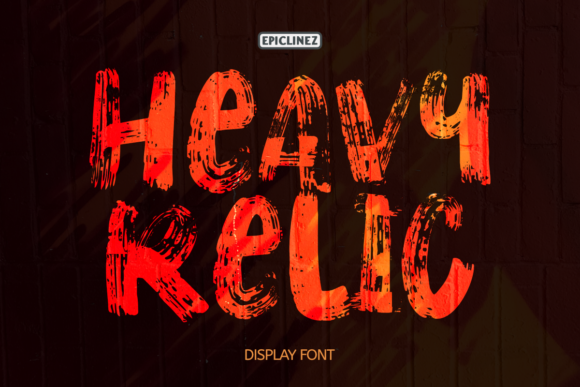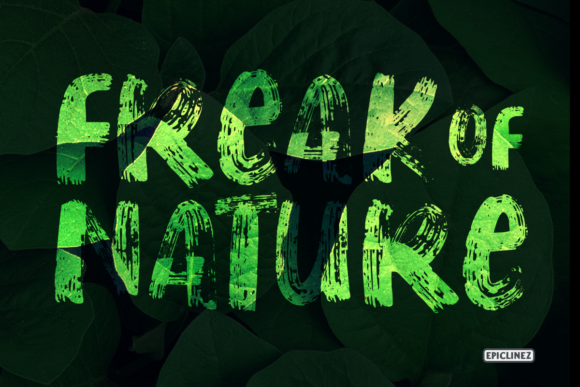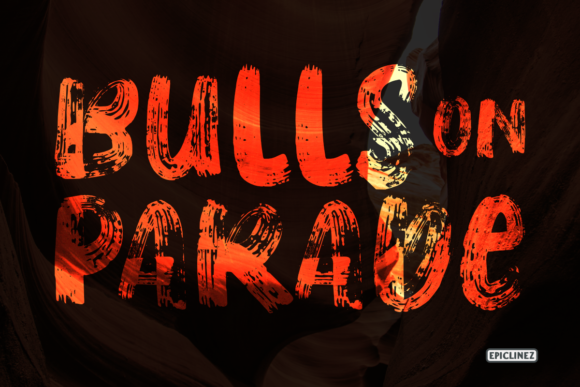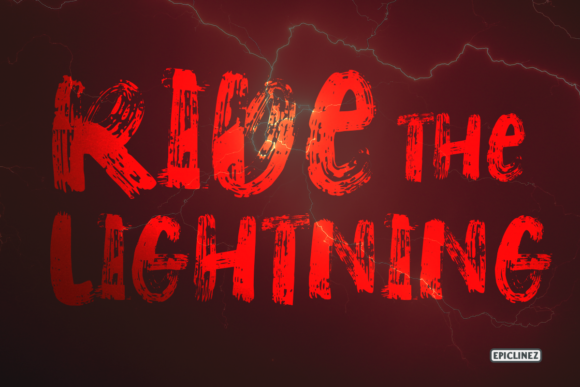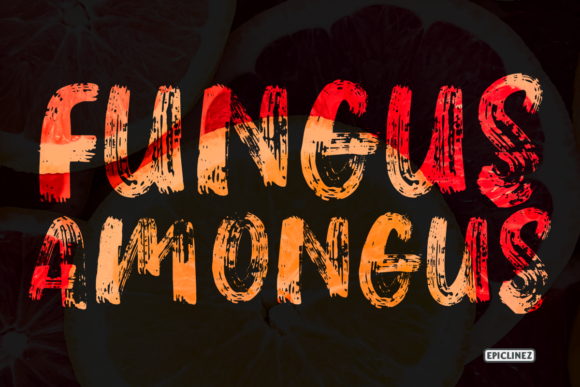
The Birth of a Timeless Design
It’s that moment when the creative juices start flowing, and you’re on the hunt for the perfect font to elevate your design. You scroll through countless options, and then, it hits you – that one font that speaks to your vision, a font that screams “use me.” For designers seeking to add an air of rugged elegance to their work, the Heavy Relic Font is the answer to that creative prayer.
This heavily textured display font is a masterclass in typography, designed to make a statement in posters, movie titles, and headlines. Its unique blend of rough edges and bold lines gives it a distinctive charm that’s sure to captivate audiences. The Heavy Relic Font is a valuable addition to any designer’s toolkit, offering a level of versatility that’s hard to find in other fonts.
Heavy Relic Font Key Features
- Font Family: Heavy Relic Font is a distressed, rough, and weathered font, ideal for vintage or retro designs.
- Unique Characteristics: Features a distressed, worn, and weathered appearance, with visible scratches, tears, and other imperfections, adding a unique touch to designs.
Heavy Relic Font Review
Overall, I’m a big fan of the Heavy Relic Font. It’s got a unique, distressed look that adds character to any design project. ✨ The font is perfect for creating a vintage or retro vibe, and its bold, rugged texture makes it stand out from more traditional fonts.
The Heavy Relic Font has a wide range of uses, from headings and titles to body text and even logos. It’s versatile and can be used in a variety of contexts, from print to digital media. ✨ The font is also highly customizable, with a range of weights and styles to choose from.
- ⚠️ The font can be quite difficult to read in smaller sizes or at a distance, due to its bold and distressed texture.
- ⚠️ Some users may find the font too loud or overpowering, particularly when used in large quantities.
- ⚠️ The font may not be suitable for use in situations where clarity and readability are paramount, such as in instructional or technical text.
Overall, I would highly recommend the Heavy Relic Font to designers looking for a unique and eye-catching font to add some personality to their projects. While it may have some limitations, its versatility and customizability make it a valuable addition to any design toolkit.
Heavy Relic Font is ideal for:
– Creating vintage or distressed text effects.
– Adding a worn, aged look to designs.
– Using in posters, flyers, or other promotional materials.
For optimal results, use the font in combination with other design elements, such as textures and gradients, to create a cohesive look.
Alternatives to Heavy Relic Font
Heavy Relic Font is a distressed font known for its rugged, vintage look. Here are some alternatives for designers to consider.
Monsieur La Doulaise
Monsieur La Doulaise is a distressed script font that offers a similar vintage feel to Heavy Relic Font. It’s ideal for use in designs where a sense of nostalgia and elegance is desired, such as in branding, packaging, or invitations. While Monsieur La Doulaise has a more refined look compared to Heavy Relic Font, it still maintains a distressed aesthetic that adds character to designs.
Sketchnote
Sketchnote is a sans-serif font that mimics the look of handwritten notes. It’s a great alternative to Heavy Relic Font for designs that require a more casual, rough-around-the-edges feel. Sketchnote is perfect for use in designs such as blog posts, social media graphics, or event flyers. Compared to Heavy Relic Font, Sketchnote has a more modern look, but still conveys a sense of informality and approachability.